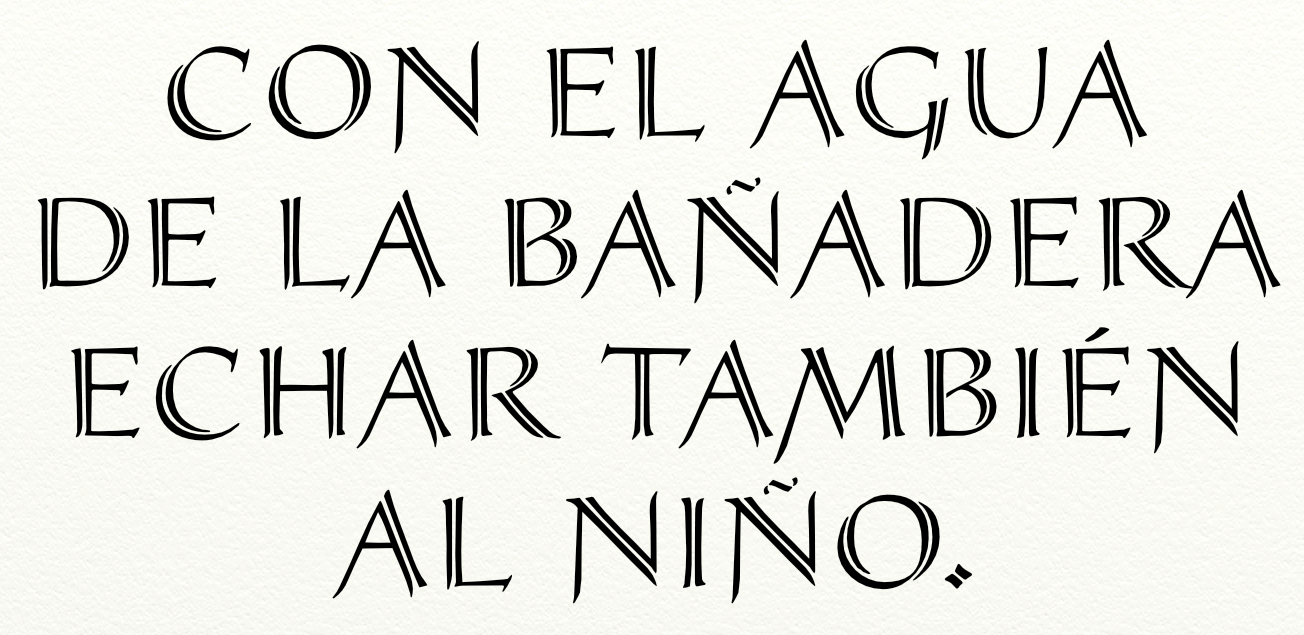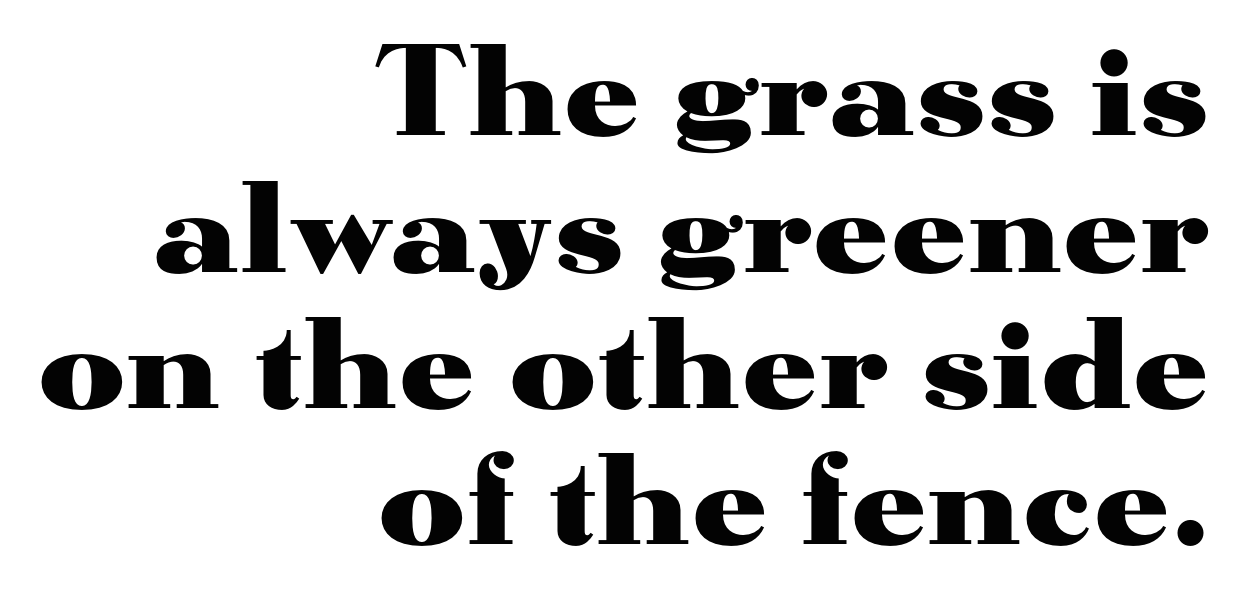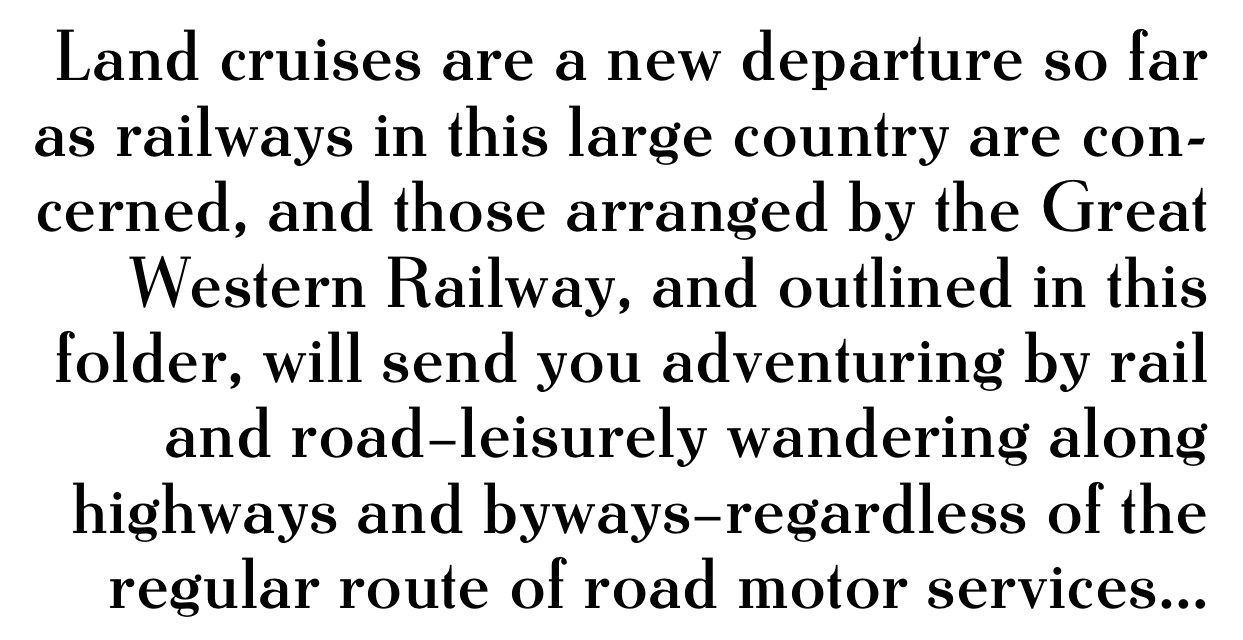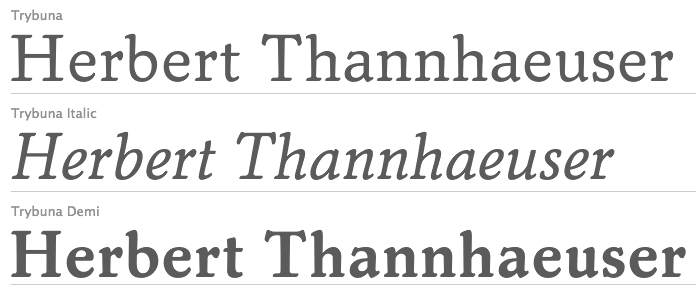
Herbert Thannhäuser
Designer born in 1898 in Berlin, who died in 1963 in Kleinmachnow. He worked in various Berlin graphics bureaus. He was artistic consultant at Max Krause and for many printing shops. From 1933 until 1940, he was artistic consultant at Schelter&Giesecke in Leipzig. From 1951 on, he was artistic director at VEB Typoart in Leipzig. Bio at BfdS. Bio at Linotype. Bio at Klingspor. MyFonts link. A brief biography by Gertrud Thannhaeuser in Die deutsche Schrift, volume 1095, 1992: A, B, C, D.
His typefaces:
• At D. Stempel AG: Adastra (1928), Schwung Adastra (1931). Adastra was revived in 1995 by Douglas Olena / Keystrokes and by Neil Summerour in 2011 as Rhythm.
• At Typoart: Kurier (1939, a brush typeface digitized by Canada Type's Rebecca Alaccari as Puma (2004) and by Peter Wiegel in 2015 as CAT Kurier), Typoart Didot Antiqua, Kursive and Halbfett (1958), Erler Versalien (1953, Typoart: digital versions include Erler Titling (2015, Ralph M. Unger), Missale Incana (2004, Andreas Seidel) and Erler Versalien (2006, Ari Rafaeli)), Typoart Garamond (see Garamond No. 4 by URW) and Garamond No. 5 by Elsner&Flake) and Typoart Garamond Kursiv (1955), Lotto (1955, brush script, revived as Lotto in 2009 by Hans Van Maanen, Canada Type), Liberta Antiqua (1957; revived by Ralph M. Unger as Trybuna in 2013, and by Elsner & Flake as Liberta TA in 2017), Kursive, Antiqua Halbfett and Antiqua extrafett (1956), Liberta Antiqua schmalhalbfett (1959), Liberta Antiqua schmalfett (1960), Magna, Magna Kursiv and Magna Halbfett (1968; see Magna EF by Elsner&Flake, dated 1962 by them), Meister Antiqua (1952, digitized and extended by Ralph M. Unger in 2011 as Meister Antiqua; images: i, ii, iii), Meister Kursiv (1952), Meister Antiqua halbfett (1952), Technotyp schmalhalbfett (1960).
• At Schriftguss: Gravira (1935; a stylish multilinear typeface revived as Gravira in 2021 by Ralph M. Unger), Großdeutsch (1935), Hermann Gotisch (1934; revived in 2002 by Dieter Steffmann and in 2015 by Ralph M. Unger as Staufer Gotisch), Kornett (1939), Parcival Antiqua (1930, or is it 1926?; revived in 2016 by Ralph M. Unger as Parcival Antiqua), Parcival Kursiv (1930), Parcival Antiqua fett (1932), Technotyp and Technotyp halbfett (1948), Technotyp Kursiv, Technotyp fett and Technotyp extrafett (1949), Technotyp schmalfett (1951), Thannhaeuser Fraktur and Thannhaeuser Fraktur halbfett (1927-1939, Schelter&Giesecke; Delbanco has a digital version called DS Thannhaeuser Fraktur; Thannhaeuser Fraktur (2013, Ralph M.Unger) is a redesign of Typoart's Thannhaeuser Fraktur)), Thannhaeuser Fraktur schmallfett (1939) and Werbedeutsch (1933). The Lindenthal brothers revived Thannhaeuser Fraktur (Mager, magere Zierversalien, Schmalfett and Halbfett). Delbanco revived these ca. 2001. See also Werbedeutsch by Dieter Steffmann (2002).
• At Schriftguss AG: Thannhaeuser Schrift (1929), Thannhaeuser Schrift Kursiv (1933), Thannhaeuser Schrift halbfett (1934). The slab serif family Technotyp was revived in its entirety by Coen Hofmann at URW++ in 2011 under the same name.
• Other typefaces: Buick schmalfett. This was digitally revived by Nick Curtis in 2014 as Strassenmeister NF.